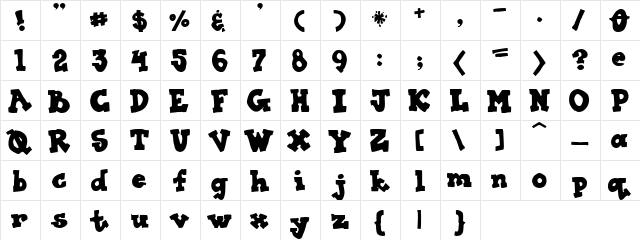
DJ Spaz Regular
Design Context for DJ Spaz Typeface
DJ Spaz is a composed and adaptable typeface that performs quietly and consistently across a wide range of design contexts.